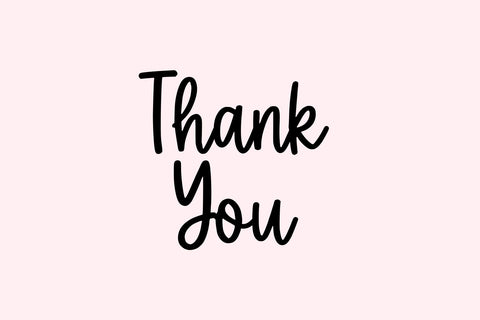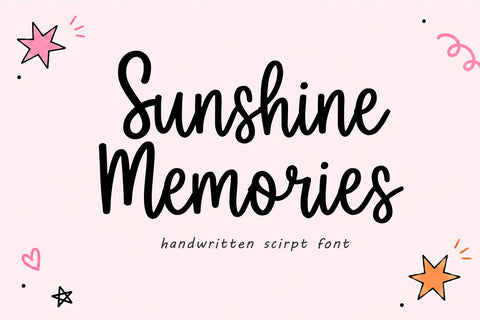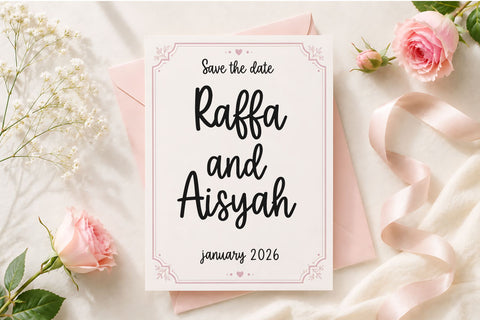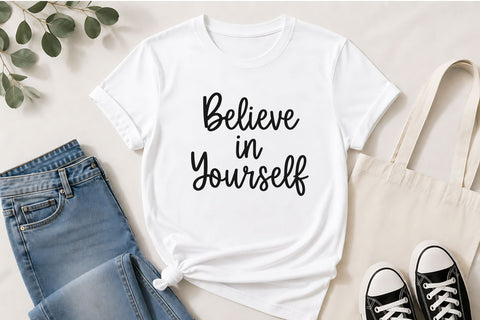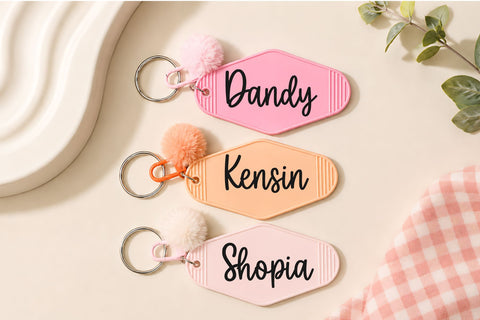
Sunshine Memories
Sunshine Memories is a playful handwritten script font with a bold, smooth, and charming style. Perfect for summer designs, t-shirts, mugs, stickers, quotes, sublimation, social media graphics, and other creative projects.